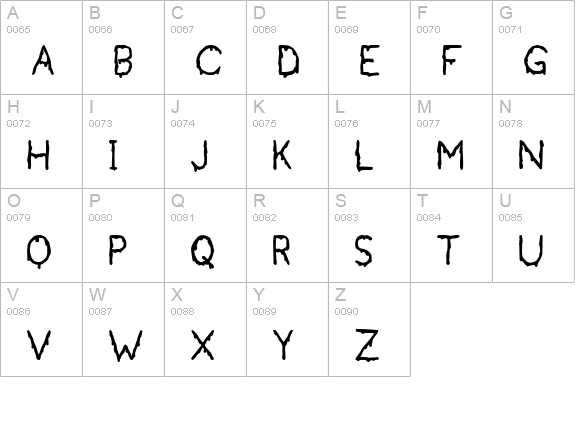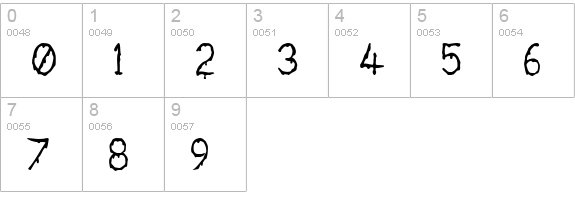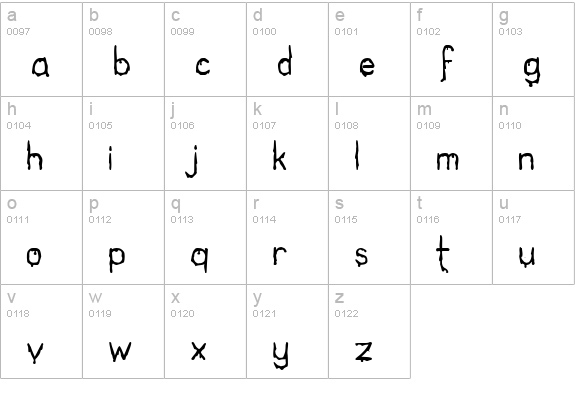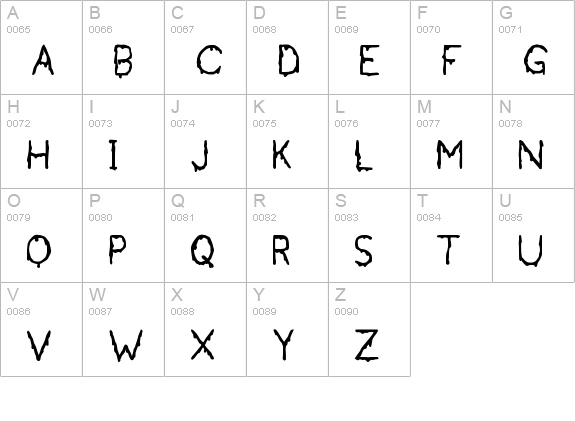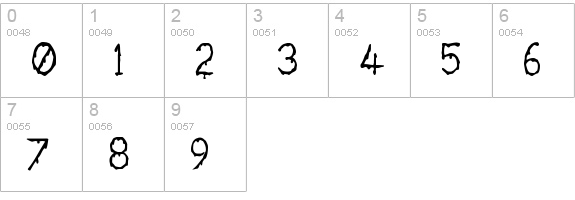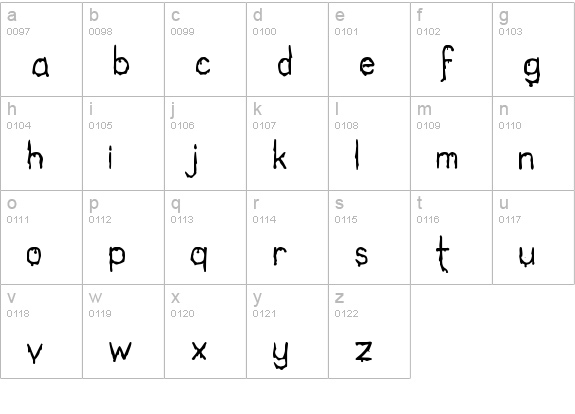
Bloodgutter 99 Font Details
Bloodgutter 99 is a bold and edgy font that exudes a sense of power and intensity. With its sharp, angular lines and unique design, this font is perfect for creating eye-catching headlines, posters, and logos. The distinctive style of Bloodgutter 99 makes it stand out from the crowd and adds a touch of fierceness to any design project. And the best part? Bloodgutter 99 is completely free to download at FontsMarket.com. That's right, you can get your hands on this striking font without spending a dime. So why wait? Add some edge to your designs with Bloodgutter 99 today!